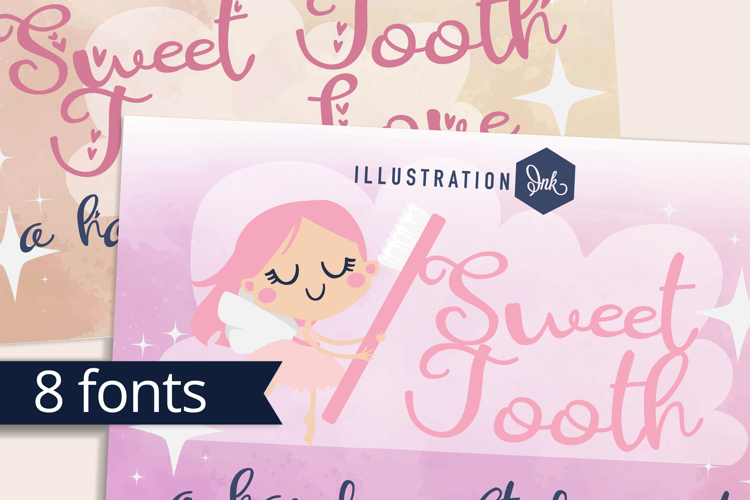
ZP Sweet Tooth Font Family
This hand-crafted font is a whimsical, hand-written, script has a bouncy baseline with several family members sporting hearts. There are 8 variations included.